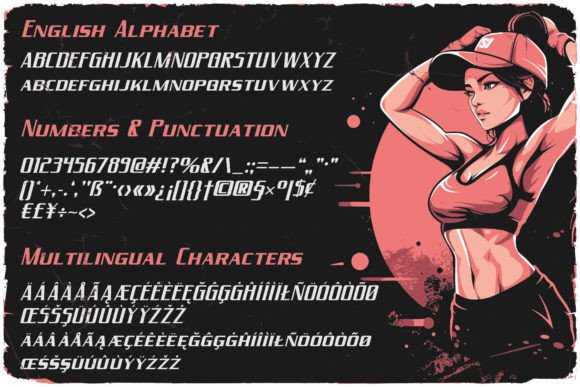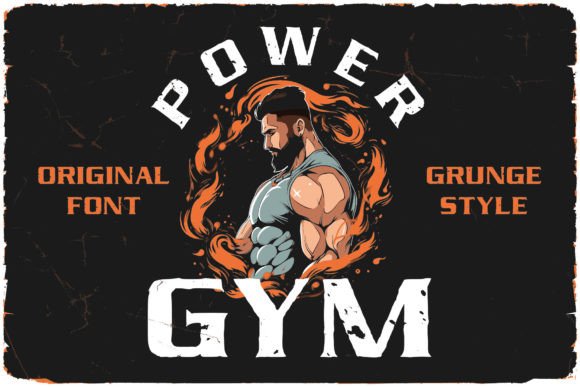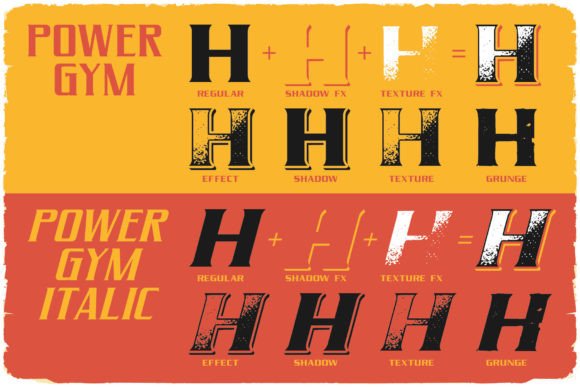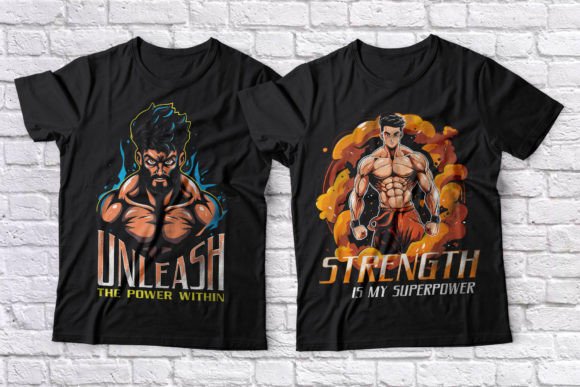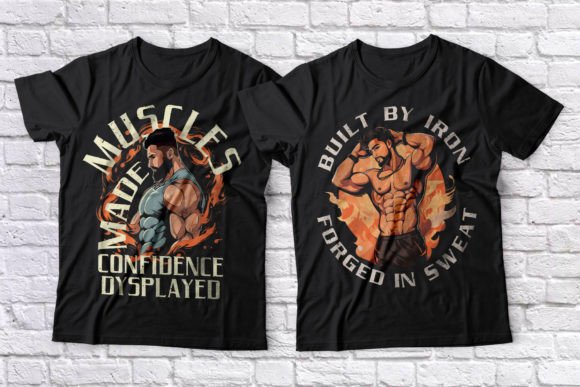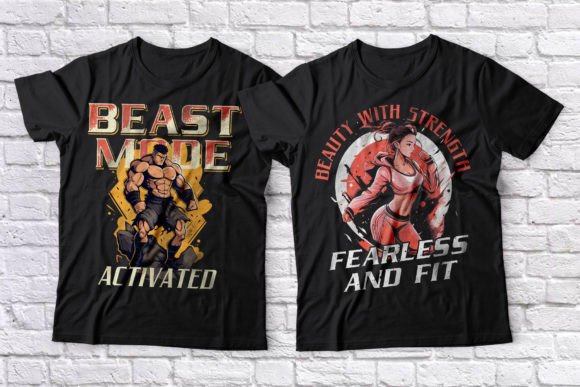
Introduction to Power Gym Font
As designers, we’ve all been there – staring at a blank canvas, trying to bring a creative project to life. Sometimes, all it takes is the right font to give your design that extra oomph. That’s where the Power Gym Font comes in – a robust, high-quality font designed to draw attention and make your project stand out.
With its powerful feel and vibrant touch, the Power Gym Font is perfect for sports design, team logos, and movie titles. But what really sets it apart is its versatility – it’s suitable for a wide range of projects, from jersey designs to book covers. Whether you’re a seasoned designer or just starting out, the Power Gym Font is a valuable addition to your design resource toolbox.
Key Features of Power Gym Font
- High-quality design resource ideal for creative projects such as fitness branding, sports websites, and exercise-related marketing materials.
- Transparent background allows for easy customization and seamless integration with any design or background.
- Perfect for use in digital and print media, with a high-resolution design suitable for large-scale applications.
- Unique characteristics include a bold and modern aesthetic, making it an excellent choice for sports and fitness brands.
- Designed with a clean and minimalist approach, ensuring readability and visual appeal in any creative project.
Honest Review: Power Gym Font
I recently stumbled upon the Power Gym Font while searching for a design resource to elevate my creative project. This font caught my eye with its bold and modern design.
Here’s what I like about Power Gym Font:
- ✨ It has a transparent background, making it easy to overlay on different backgrounds without any issues.
- ✨ The font is highly customizable, allowing designers to adjust the size, color, and style to suit their needs.
- ⚠️ The font may not be suitable for all types of creative projects, especially those that require a more elegant or refined look.
- ⚠️ The font’s bold design may be overwhelming for some projects, so designers should use it sparingly.
Overall, I’m impressed with the Power Gym Font. It’s a high-quality design resource that can add a modern touch to any creative project. While it may have some limitations, it’s definitely worth considering for designers who want a bold and eye-catching font.
How to Use Power Gym Font
The Power Gym Font is a high-quality design resource perfect for any creative project. With its sleek and modern design, it’s ideal for fitness and wellness-related projects.
Tips for Getting the Most Out of Power Gym Font
To get the most out of the Power Gym Font, use it with a transparent background to create a sleek and modern design. Experiment with different font sizes and colors to add depth and visual interest to your project.
The Power Gym Font is perfect for:
- Fitness and wellness-related projects
- Modern and sleek design projects
- Creative projects that require a high-quality font
Q: Does Power Gym Font have a transparent background?
Yes, Power Gym Font has a transparent background, making it ideal for use on dark or textured backgrounds. This feature allows designers to create visually appealing and engaging designs.